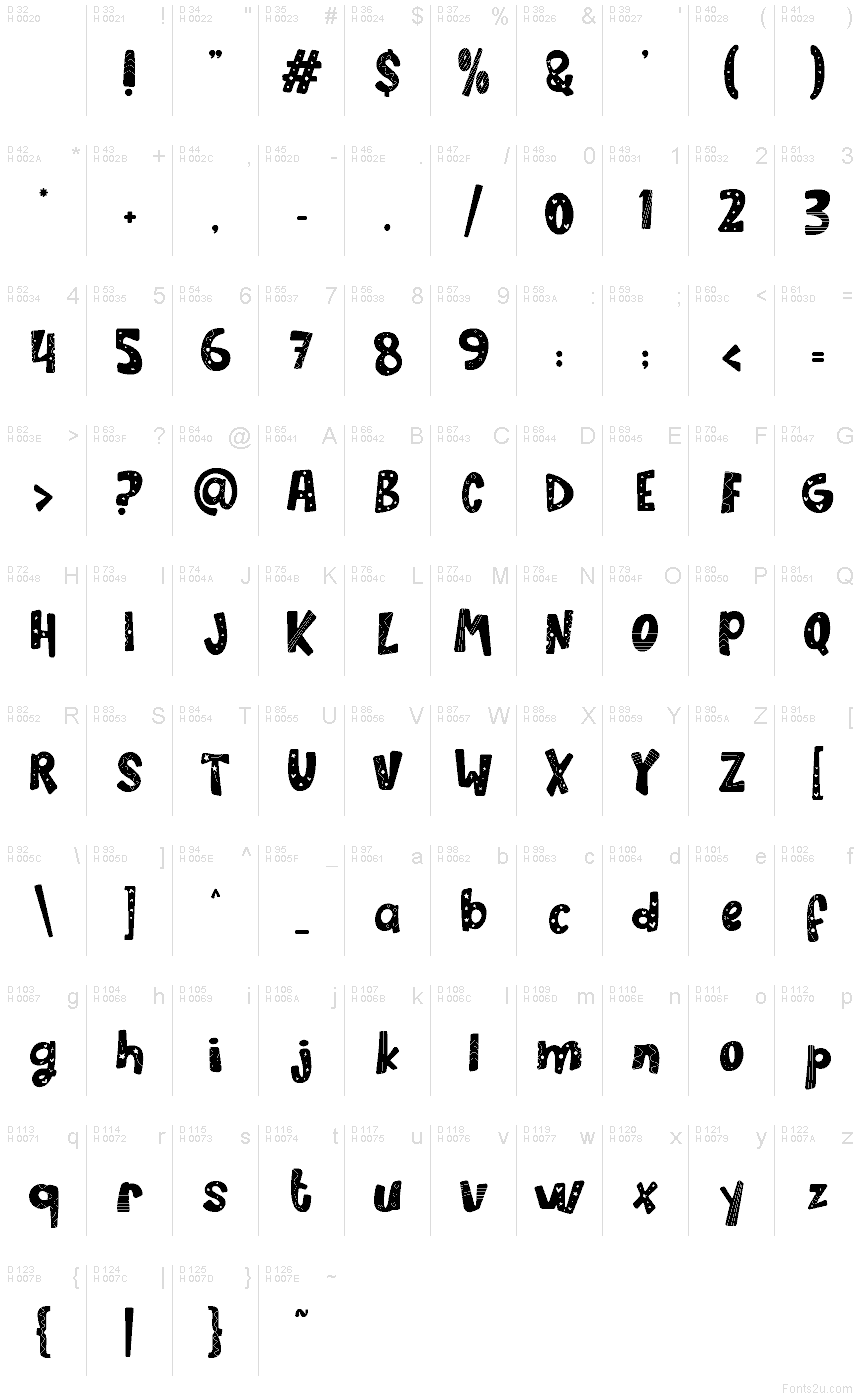
Savage Garden Decorative
Savage Garden Decorative font by PutraCetol Studio is a free display typeface with whimsical patterns and high-contrast tones. Combined together, the multiple elements provide an ornamental look that shines however it is showcased. A distinctive selection of letter appearances is offered with this bold font family which can be mixed and matched to form designs unlike any other.